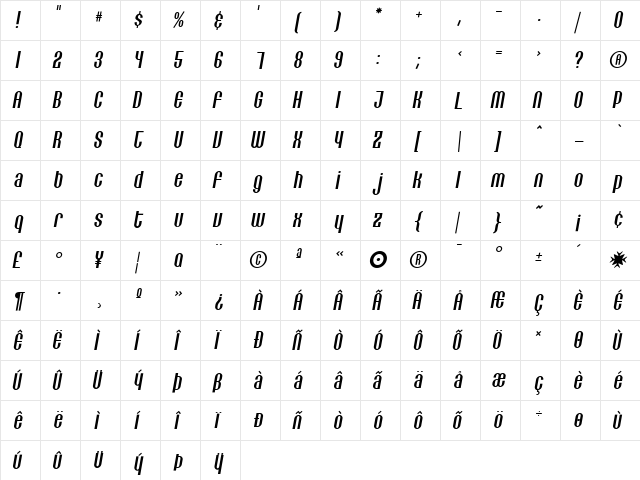
Lithia Medium Italic Font Preview
Lithia Medium Italic
Lithia Medium Italic Font Details
Design Context for Lithia Typeface
Lithia is a composed and adaptable typeface that performs quietly and consistently across a wide range of design contexts. Its italic angle brings a sense of urgency and motion to the letterforms.
Pro Tip: Use Lithia for emphasis, pull quotes, and subheadings where its slanted energy can add rhythm to the layout.